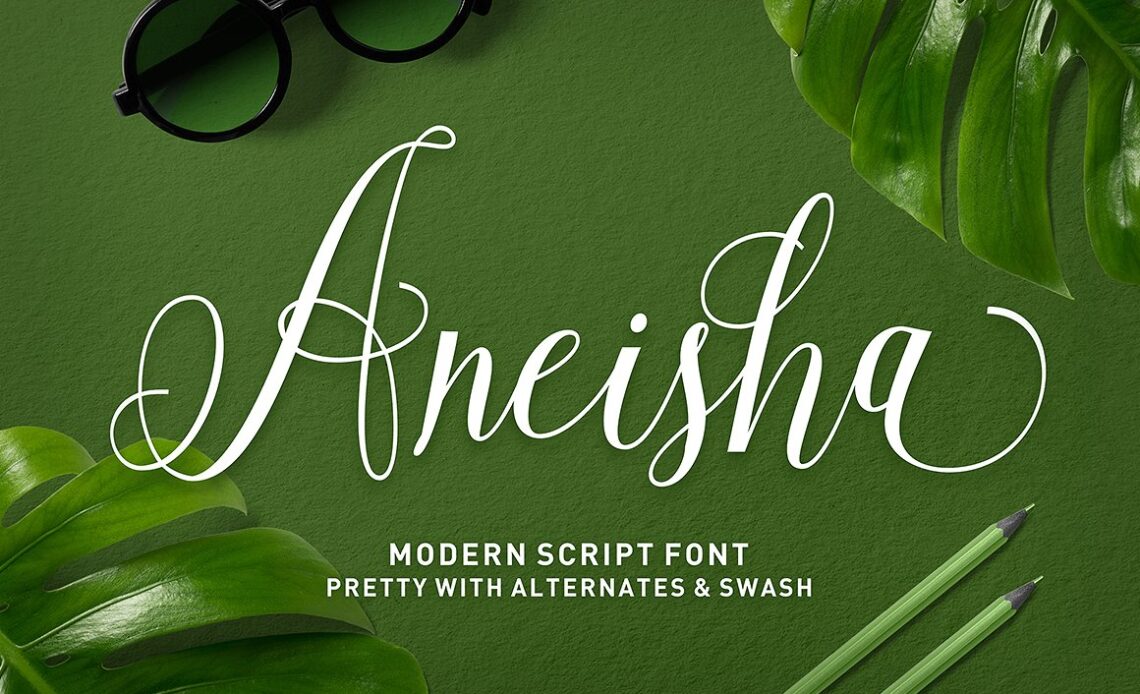
Immerse yourself in the world of Aneisha Script, a modern calligraphy font that exudes beauty and sophistication. Experience the elegance of perfectly crafted letters, designed to turn your words into captivating expressions. Aneisha Script beckons you to embrace creativity and create stunning designs that leave a lasting impression.
With its beautiful curves and graceful lines, Aneisha Script adds a touch of charm and personality to every project. Its stylish design makes it ideal for crafting eye-catching headlines, captivating logos, and memorable invitations. Whether you're a seasoned designer or just starting, Aneisha Script is the perfect companion for unleashing your creativity and leaving an indelible mark on your audience.
Unleash your limitless potential with Aneisha Script's stylistic alternates, allowing you to explore a spectrum of unique expressions. Create wonderfully intricate headlines, design captivating posters, or personalize enchanting wedding invitations. Let your imagination soar as you combine the alternates to forge your own unique style, ensuring that your projects stand out from the crowd.
Aneisha Script is more than just a font; it's a gateway to a world of creativity and expression. Its versatility knows no bounds, adapting seamlessly to a variety of design projects. From delicate branding elements to enchanting social media posts, Aneisha Script transforms ordinary words into visual masterpieces. With its ability to elevate your designs, Aneisha Script is the ultimate choice for those seeking to make a statement.
Don't settle for ordinary fonts that blend into the mundane. Choose Aneisha Script and unlock a font that echoes the beauty of handcrafted calligraphy. Its modern design ensures that your projects exude a timeless elegance, while its stylistic alternates empower you to explore a world of possibilities. Let Aneisha Script be your creative companion, guiding you to create designs that resonate with both elegance and impact.